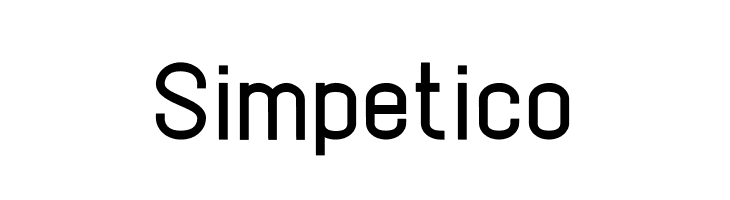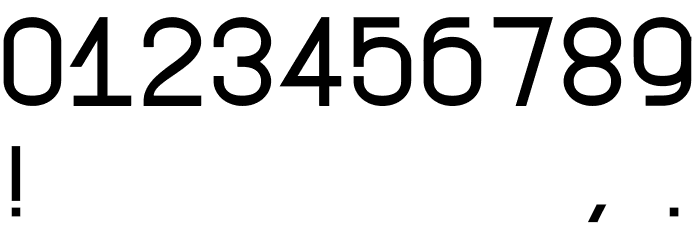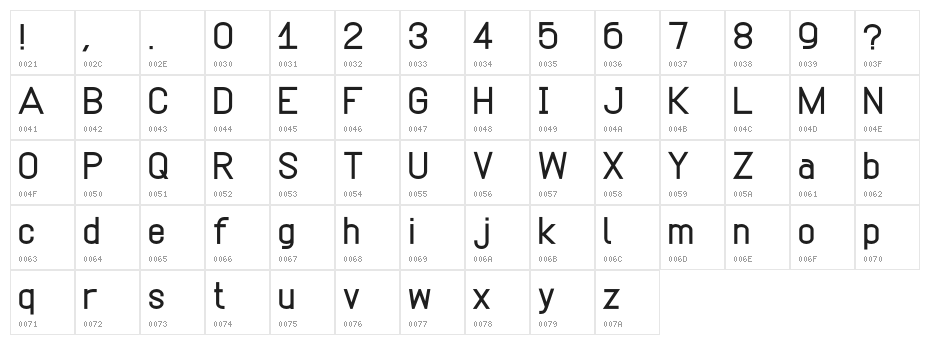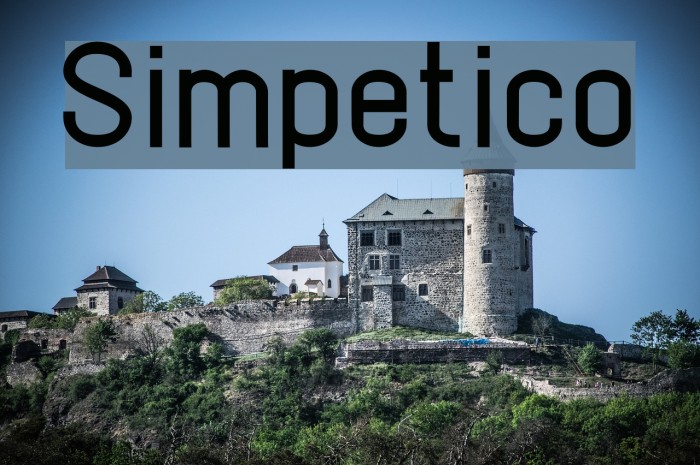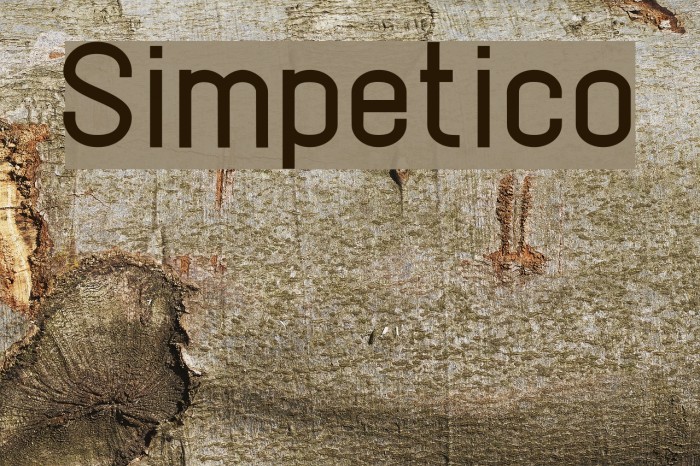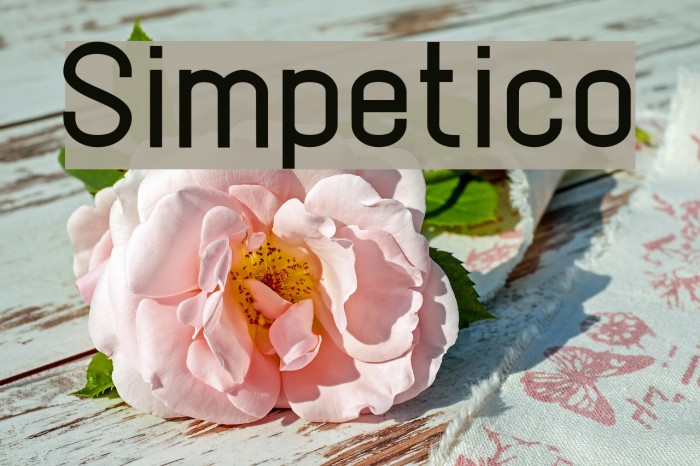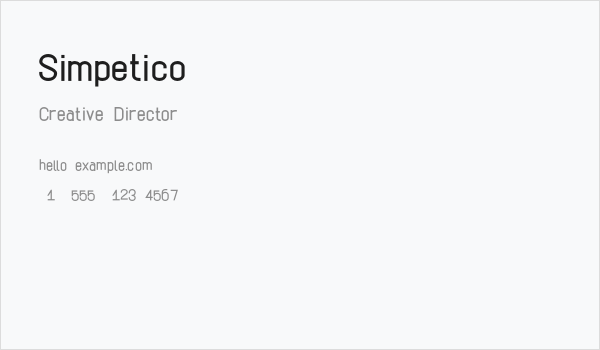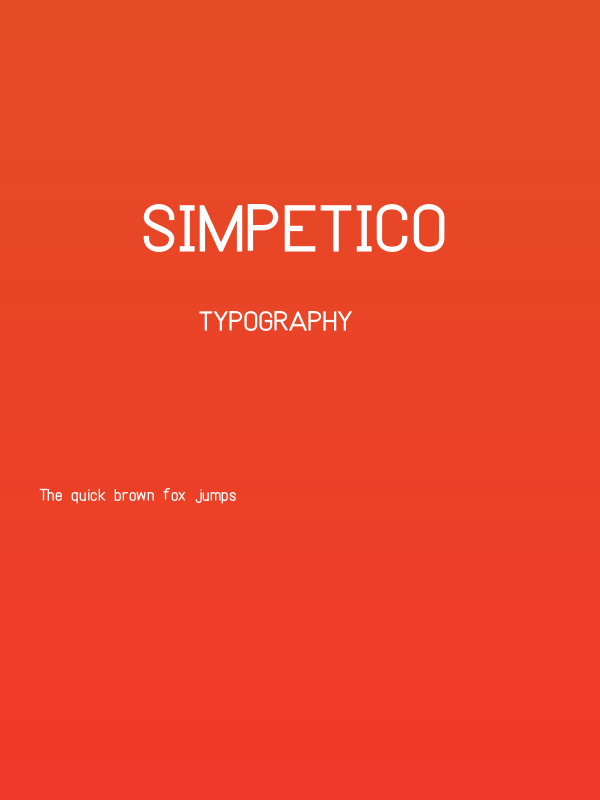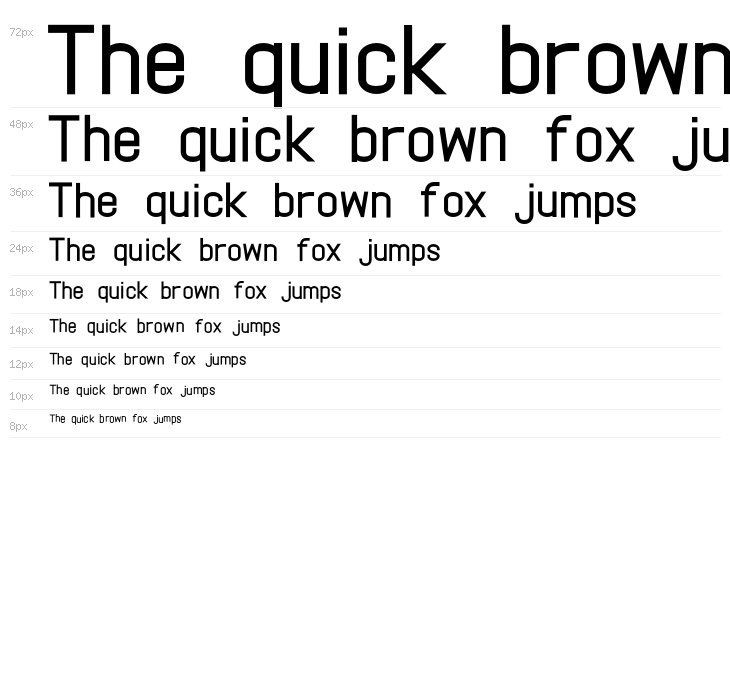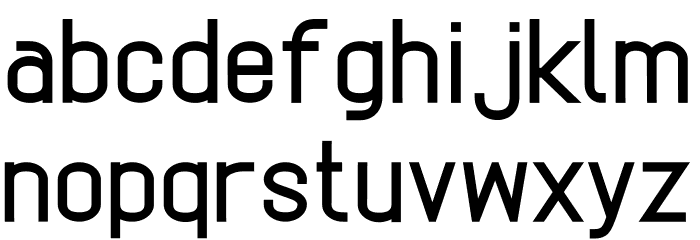
Simpetico Font
Simpetico Description
This typeface features a clean and modern sans-serif design, characterized by its geometric shapes and uniform stroke widths. The uppercase letters are bold and assertive, while the lowercase letters maintain a consistent height and spacing, offering a harmonious appearance. The numerals are clear and easily distinguishable, making them suitable for both digital and print formats. The font's simplicity and clarity make it versatile for a wide range of applications, from branding to editorial design. Its straightforward design ensures readability at various sizes, enhancing its utility in diverse contexts.
| Proposed Projects | Ideal for branding, editorial design, digital interfaces, and signage. |